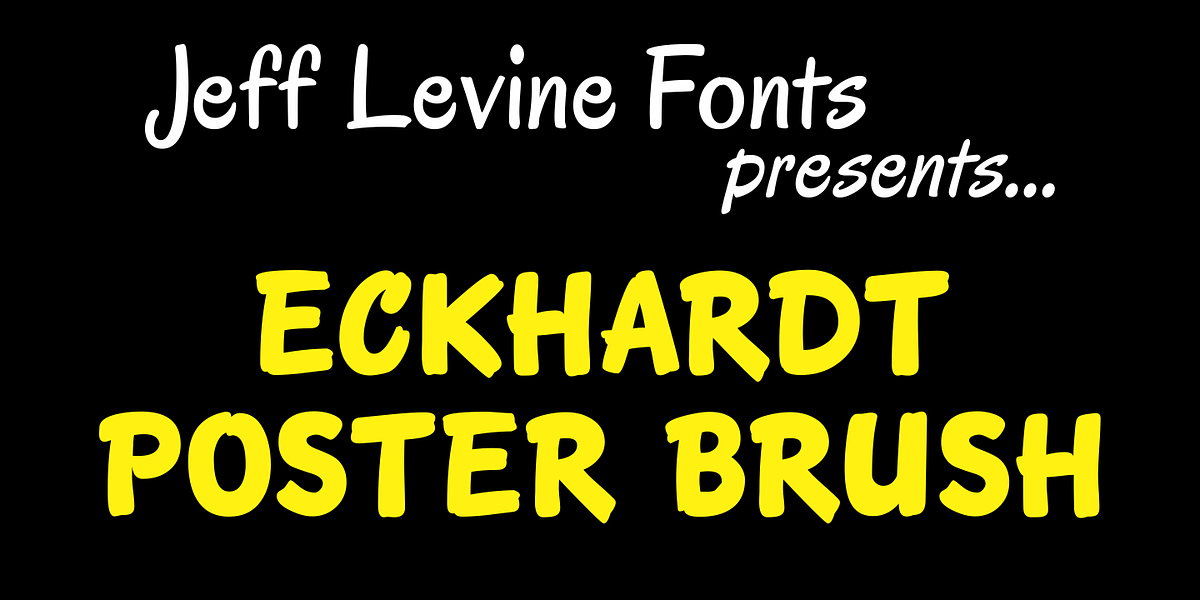
Eckhardt Poster Brush JNL
Eckhardt Poster Brush JNL is part of a series of fonts emulating many of the various styles of hand lettering employed by sign painters and show card writers. The series is named in honor of the late Albert Eckhardt, Jr. - a talented sign writer and a good friend of the font’s designer, Jeff Levine.
Eckhardt Poster Italic JNL is an angled treatment of the font.